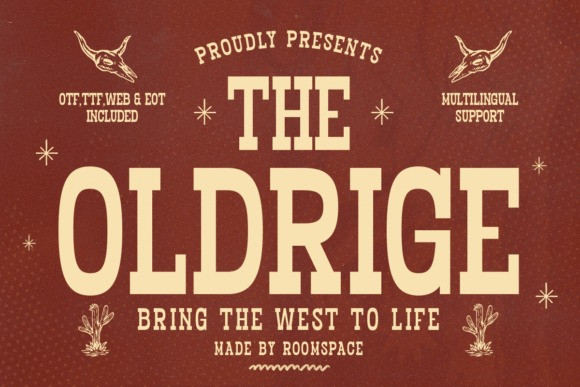
Oldrige Font
Oldrige Font a commanding, heavy slab serif display typeface deeply rooted in classic Western and vintage American signage aesthetics.
The Oldrige font features ultra-bold, condensed letterforms with sturdy, distinctive serifs, delivering a powerful and authentic visual punch. Its strong presence and traditional styling make it the definitive choice for projects aiming to evoke themes of tradition, heritage, adventure, and the rugged outdoors. Perfect for distillery branding, beer and whiskey labels, rodeo event posters, vintage packaging, and any logo or headline needing a touch of classic cowboy grit.
This robust The Oldrige typeface supports multiple languages and is a reliable, high-impact asset for graphic designers everywhere.
The Oldrige font is also PUA-encoded, ensuring effortless access to all glyphs, swashes, and alternate characters to help you customize your creations with ease.